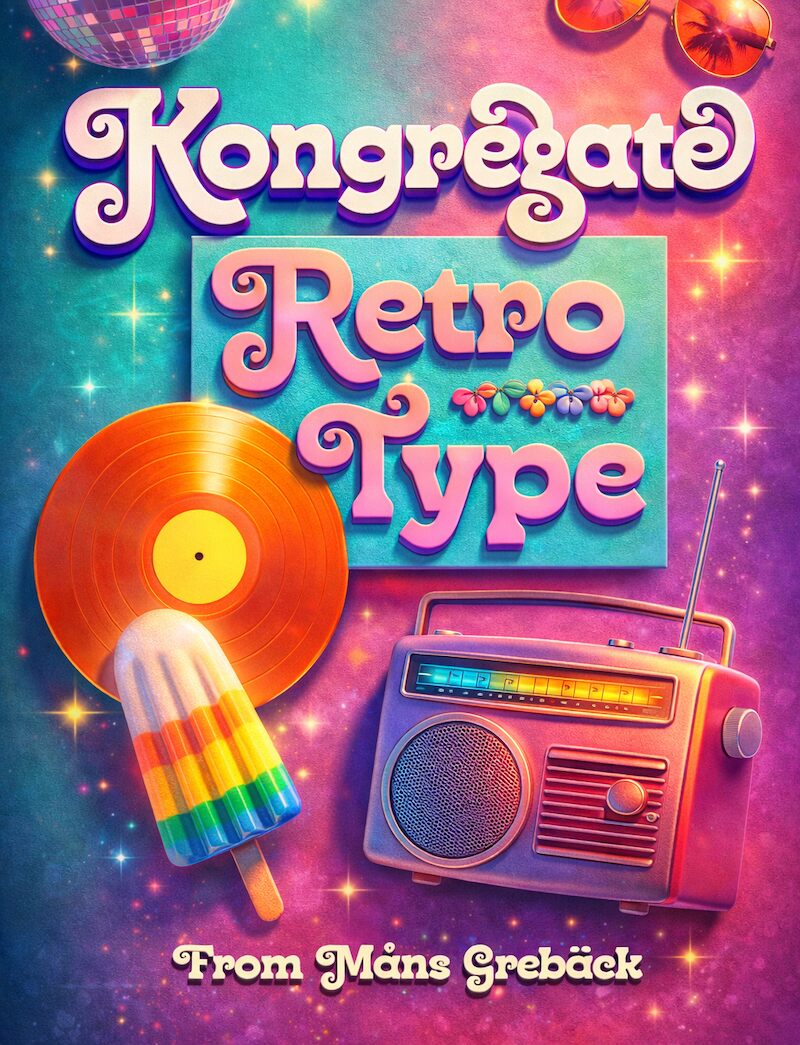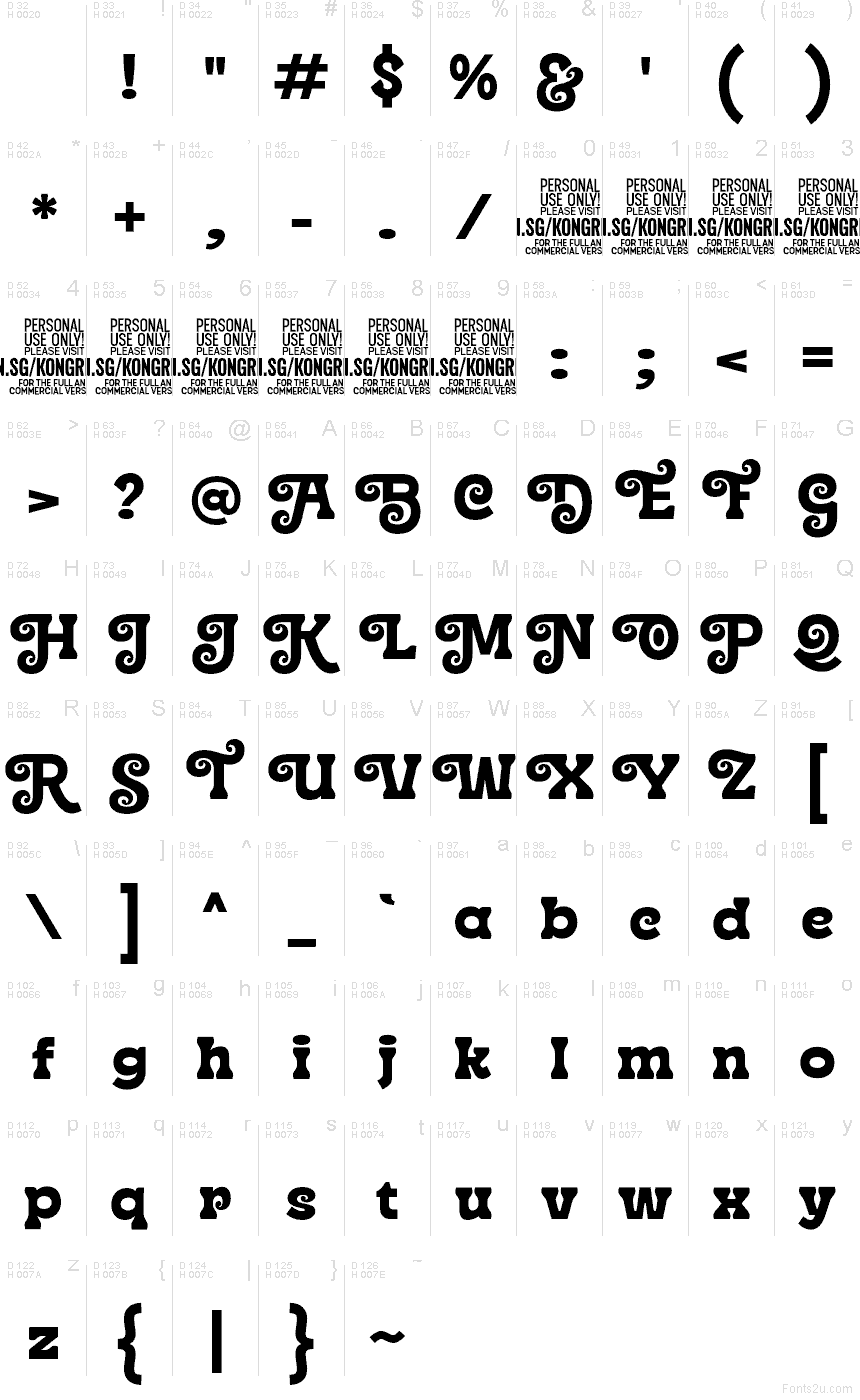
Kongregate PERSONAL USE Regular
Kongregate font by Mans Greback is a free groovy display typeface with thick, inky curves that feel straight out of a psychedelic poster. Each letter swirls into the next with corkscrew terminals and bubbly counters, giving your words a playful, almost liquid motion. The chunky weight and tight rhythm make headlines feel bold and loud, yet they stay friendly and approachable rather than shouty.
Using Kongregate, you can instantly inject retro personality into posters, party invitations, game titles, album covers, branding for quirky products, and eye-catching social graphics. This free font shines at large sizes where its curls and loops can really breathe. Pair it with a clean, geometric sans-serif in small text to keep things readable while Kongregate handles the fun, attention-grabbing moments.